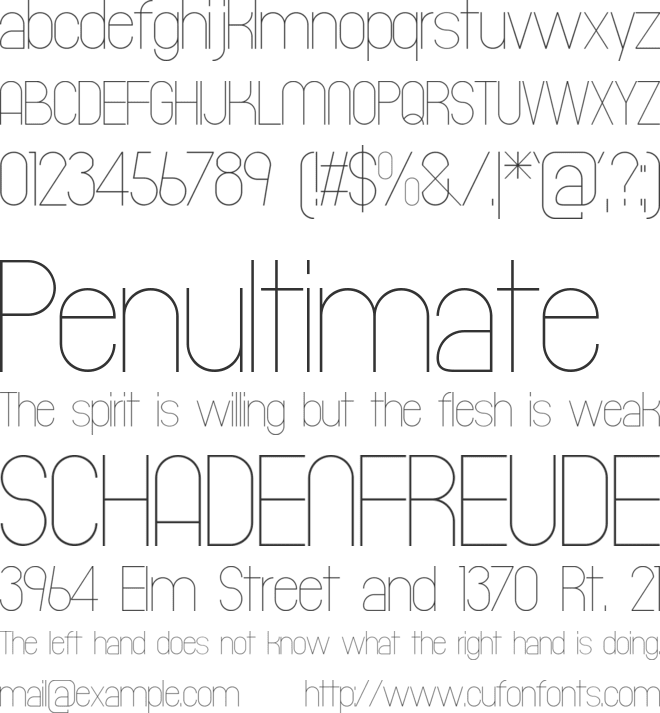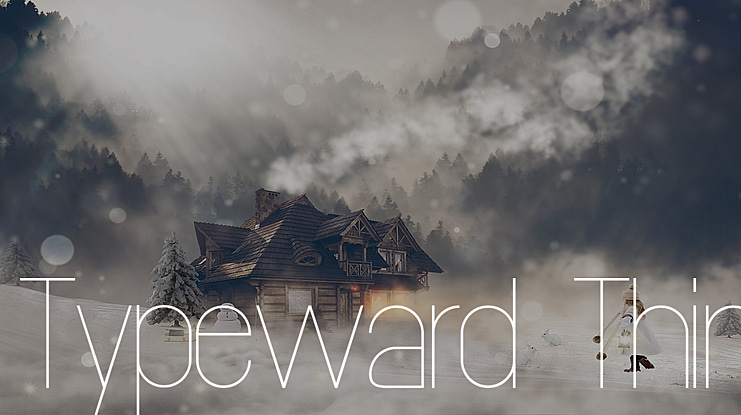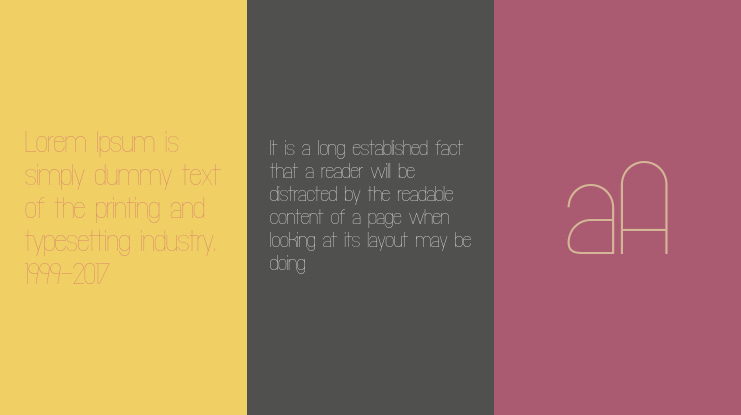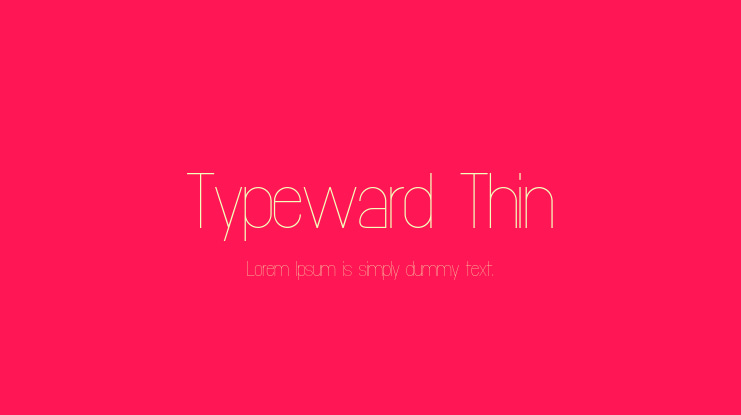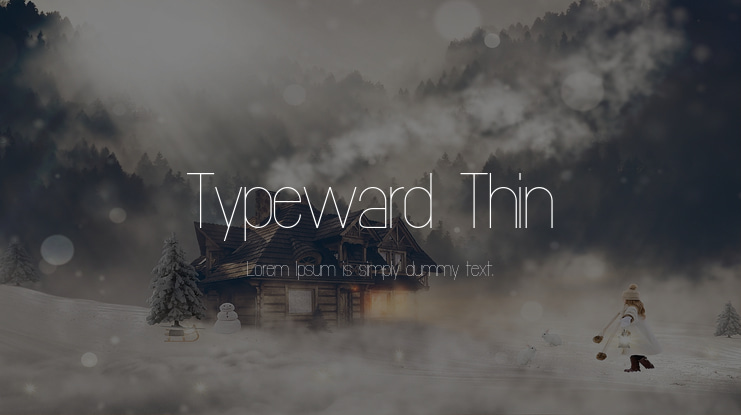
Typeward Thin Font Family
P.A.Vannuccu
From the study of modern typography, an exclusive font presented in preview, which combines tradition with the avant-garde. 12 True Type fonts (thin-ultralight-light-regular-medium-bold) for a modern look aimed at printing and contemporary graphics.
Dallo studio della tipografia moderna, un font esclusivo presentato in anteprima, che combina la tradizione con lโ€™avanguardia. 12 font True Type (thin-ultralight-light-regular-medium-bold) per una moderna veste rivolta alla stampa e alla grafica contemporanea.